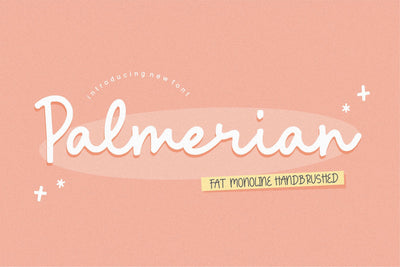
Palmeria - Fat Monoline Handbrushed Font
Proudly Present, Palmeria Font.
Palmeria is a Fat Monoline Handbrushed Font.
Whether you're looking for a font for social media or for a DIY project, this font will turn any creative idea into a true work of art!